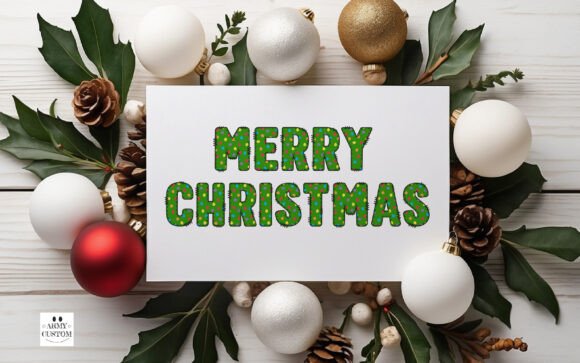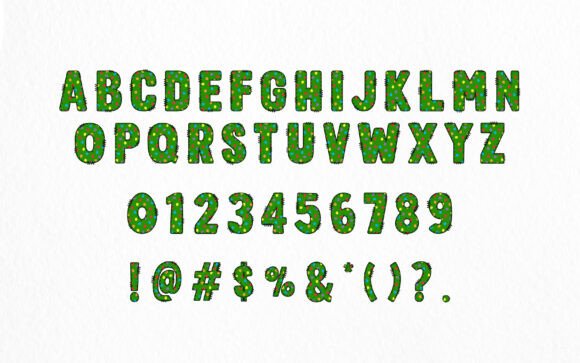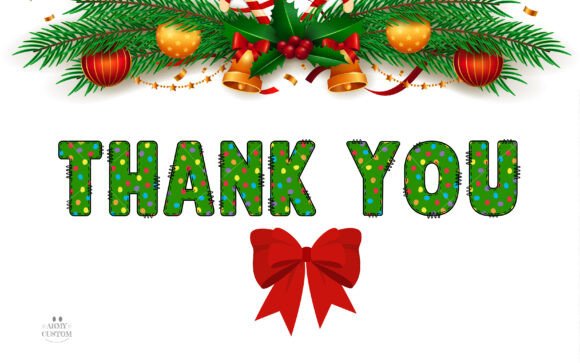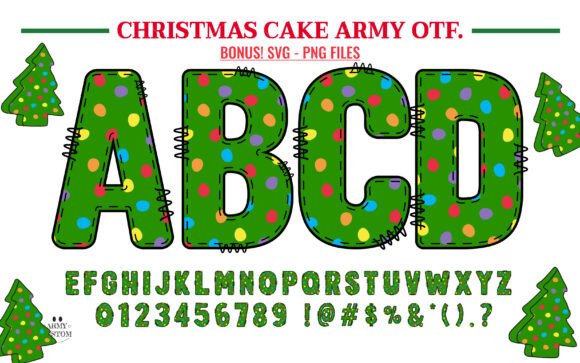
Experience the Magic of Christmas with the Christmas Cake Army Font
The holiday season is upon us, and what better way to spread cheer than with a font that’s as festive as it is functional? Look no further than the Christmas Cake Army Font, a vibrant and playful typeface that’s sure to add a dash of holiday magic to your designs. In this article, we’ll dive into the world of Christmas Cake Army Font, exploring its features, benefits, and uses, as well as provide tips and tricks for getting the most out of this amazing font.
What is the Christmas Cake Army Font?
The Christmas Cake Army Font is a unique and eye-catching typeface that’s specifically designed to capture the spirit of the holiday season. With its bright colors and playful design, this font is perfect for creating festive and fun designs that are sure to stand out. Whether you’re a designer, crafter, or simply someone who loves the holiday season, this font is a must-have for anyone looking to add a little extra cheer to their projects.
Features of the Christmas Cake Army Font
So, what makes the Christmas Cake Army Font so special? Here are just a few of its key features:
- Vibrant Colors: The Christmas Cake Army Font is available in a range of bright and bold colors, perfect for adding a pop of color to your designs.
- Distinctive Design: This font features a unique and playful design that’s sure to stand out from the crowd.
- Immaculate Craftsmanship: The Christmas Cake Army Font is meticulously crafted to ensure that every detail is perfect, from the shape of each letter to the spacing between them.
Benefits of Using the Christmas Cake Army Font
So, why should you choose the Christmas Cake Army Font for your holiday designs? Here are just a few benefits:
- Adds a Touch of Festivity: This font is specifically designed to capture the spirit of the holiday season, making it perfect for creating festive and fun designs.
- Stand Out from the Crowd: With its unique and eye-catching design, the Christmas Cake Army Font is sure to help your designs stand out from the crowd.
- Versatile: The Christmas Cake Army Font can be used for a wide range of projects, from holiday cards and decorations to social media graphics and more.
Tips and Tricks for Using the Christmas Cake Army Font
Here are a few tips and tricks for getting the most out of the Christmas Cake Army Font:
- Experiment with Colors: Try out different color combinations to find the perfect look for your design.
- Play with Size: Experiment with different font sizes to add emphasis and create visual interest.
- Pair with Other Fonts: Try pairing the Christmas Cake Army Font with other fonts to create a unique and eye-catching look.